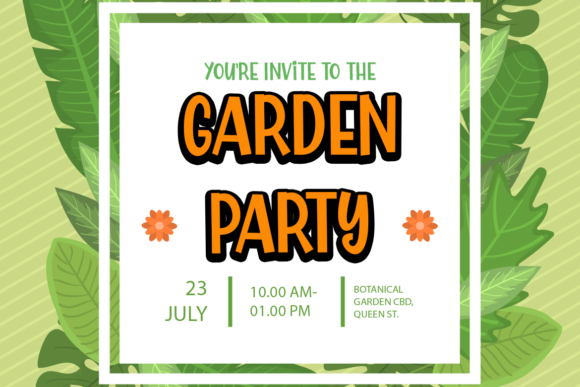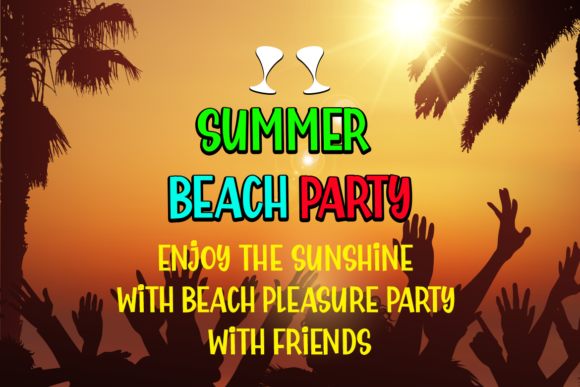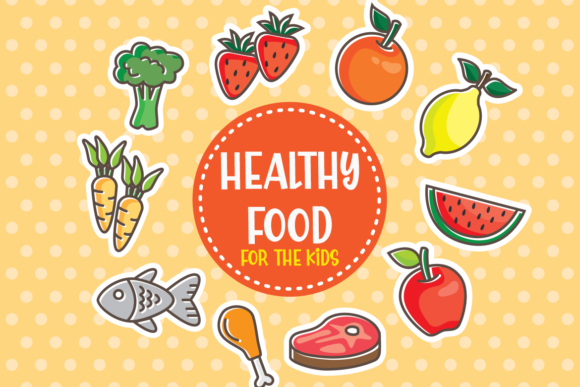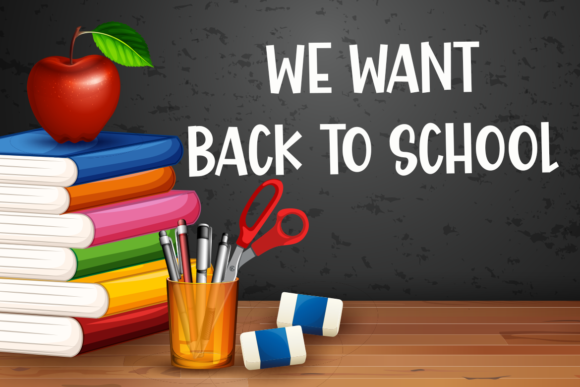
Crispy Duck Font: The Perfect Choice for Playful and Authentic Designs
Are you looking for a font that exudes playfulness and authenticity? Do you want to create designs that are both cute and readable? Look no further than Crispy Duck Font! This charming display font is perfect for children-themed designs, and when paired with bright colors, it’s sure to capture the attention of your audience.
What is Crispy Duck Font?
Crispy Duck Font is a unique and delightful font that embodies the spirit of playfulness and friendliness. Its cute and readable design makes it an ideal choice for a variety of creative projects, from children’s books and educational materials to posters, flyers, and digital graphics.
Key Features of Crispy Duck Font
- Cute and Readable Design: Crispy Duck Font features a distinctive and charming design that is both easy to read and visually appealing.
- Playful and Authentic: This font embodies the spirit of playfulness and authenticity, making it perfect for designs that require a friendly and approachable tone.
- Perfect for Children-Themed Designs: Crispy Duck Font is specifically designed with children in mind, making it an excellent choice for projects that require a fun and youthful vibe.
- Works Well with Bright Colors: When paired with bright and bold colors, Crispy Duck Font really comes alive, creating a visually stunning and engaging design.
Use Cases for Crispy Duck Font
Crispy Duck Font is a versatile font that can be used in a variety of creative projects, including:
- Children’s Books and Educational Materials: Create engaging and interactive books, workbooks, and educational resources that kids will love.
- Posters and Flyers: Design eye-catching posters and flyers for kids’ events, parties, and activities that will grab attention and create excitement.
- Digital Graphics: Use Crispy Duck Font to create fun and playful digital graphics, such as social media posts, blog headers, and website elements.
- Crafting and DIY Projects: Add a personal touch to your crafting and DIY projects, such as handmade cards, gift tags, and scrapbooking pages.
Why Choose Crispy Duck Font?
With so many fonts available, why choose Crispy Duck Font? Here are just a few reasons:
- Unique and Distinctive: Crispy Duck Font is a one-of-a-kind font that will set your designs apart from the rest.
- Easy to Read: This font is designed to be easy to read, even at smaller sizes, making it perfect for a variety of applications.
- Fun and Playful: Crispy Duck Font embodies the spirit of playfulness and fun, making it perfect for designs that require a lighthearted tone.
Tips for Using Crispy Duck Font
Here are a few tips for getting the most out of Crispy Duck Font:
- Pair with Bright Colors: Don’t be afraid to experiment with bright and bold colors to really make Crispy Duck Font shine.
- Use for Headings and Titles: Crispy Duck Font is perfect for headings and titles, where its playful and attention-grabbing design can really make an impact.
- Experiment with Different Sizes: Try using Crispy Duck Font in different sizes to create visual interest and hierarchy in your designs.
Crispy Duck Font is a charming and versatile font that is perfect for designers and crafters looking to add a touch of playfulness and authenticity to their designs. With its cute and readable design, this font is ideal for children-themed designs, and when paired with bright colors, it’s sure to capture the attention of your audience. So why not give Crispy Duck Font a try and see the difference it can make in your designs?